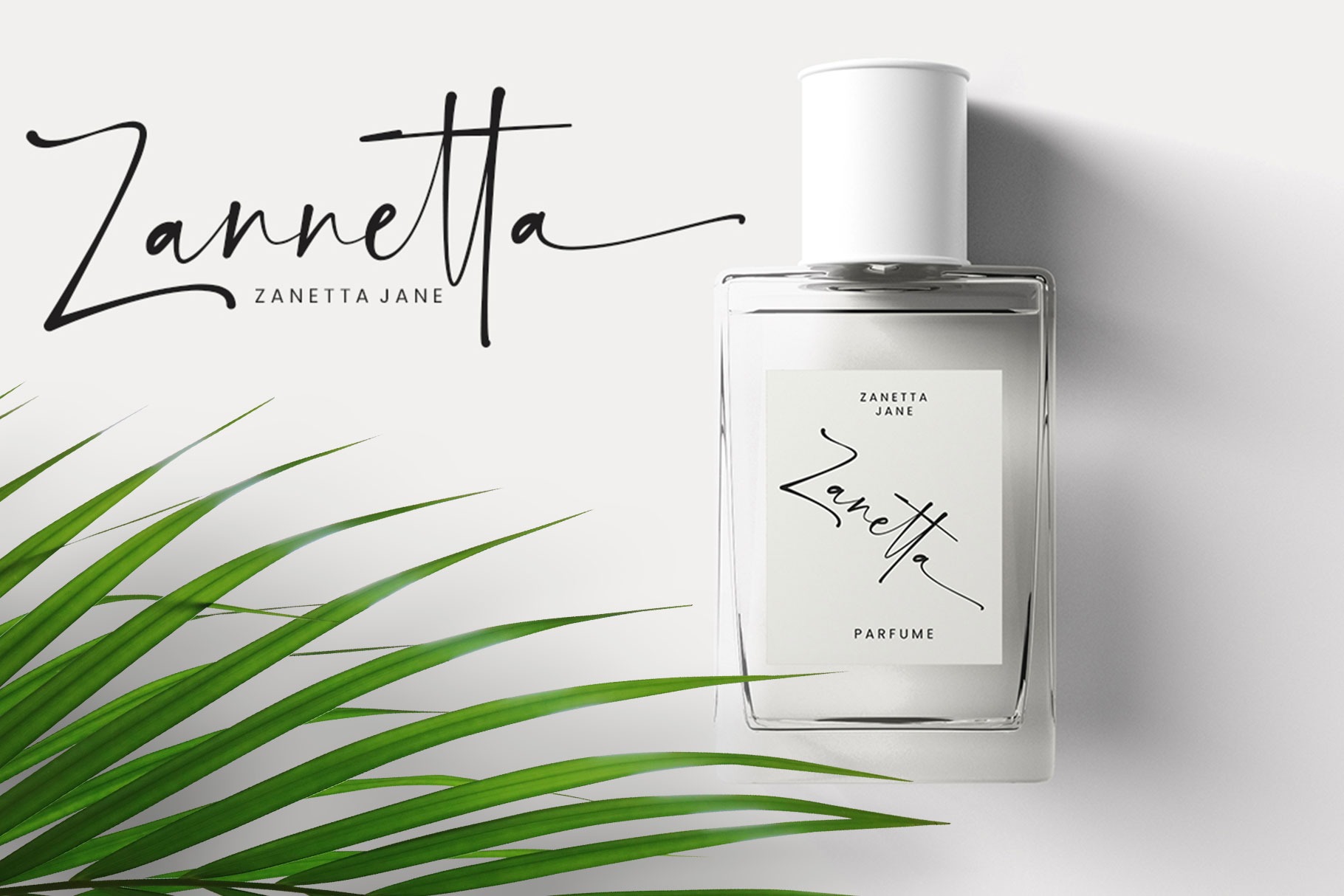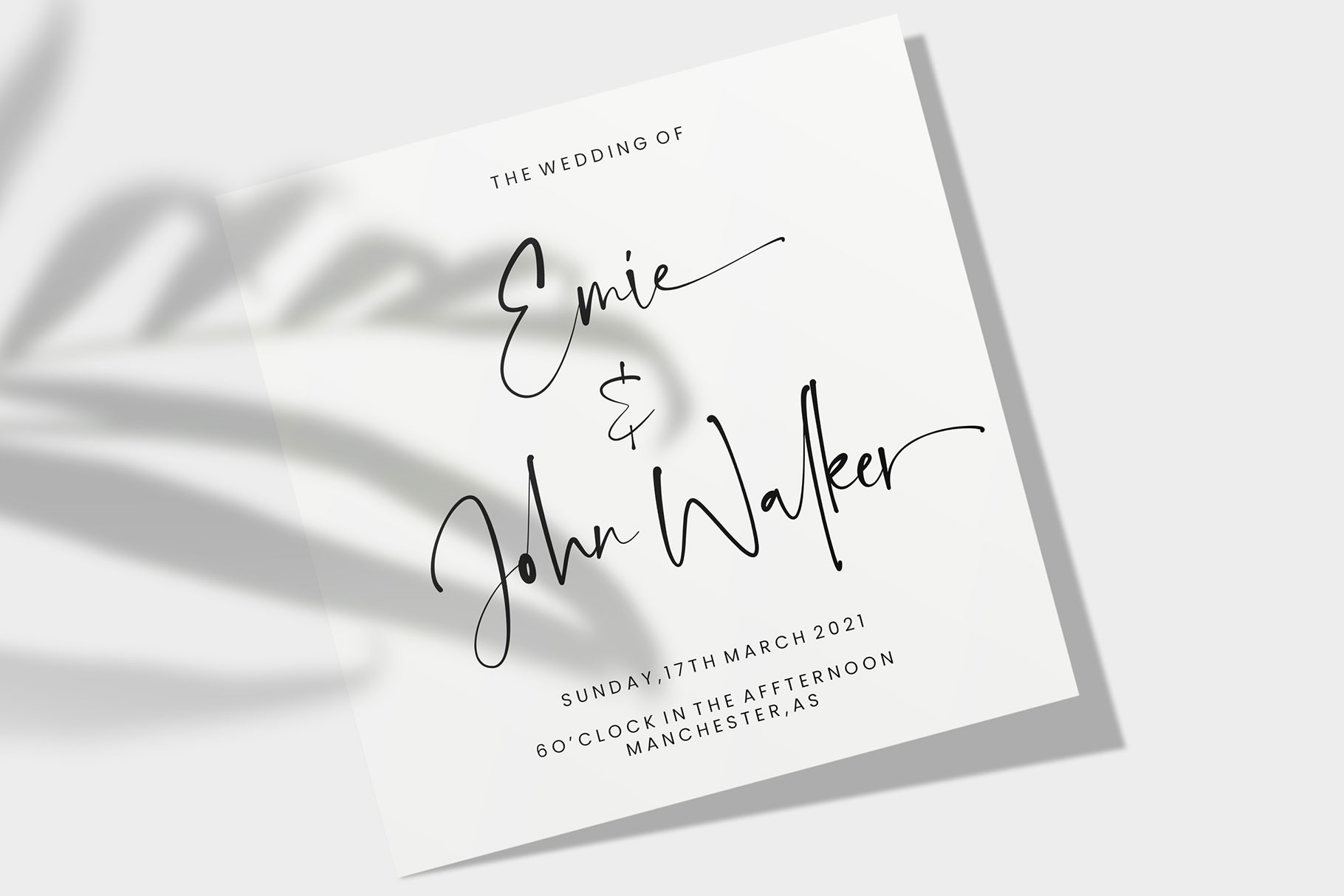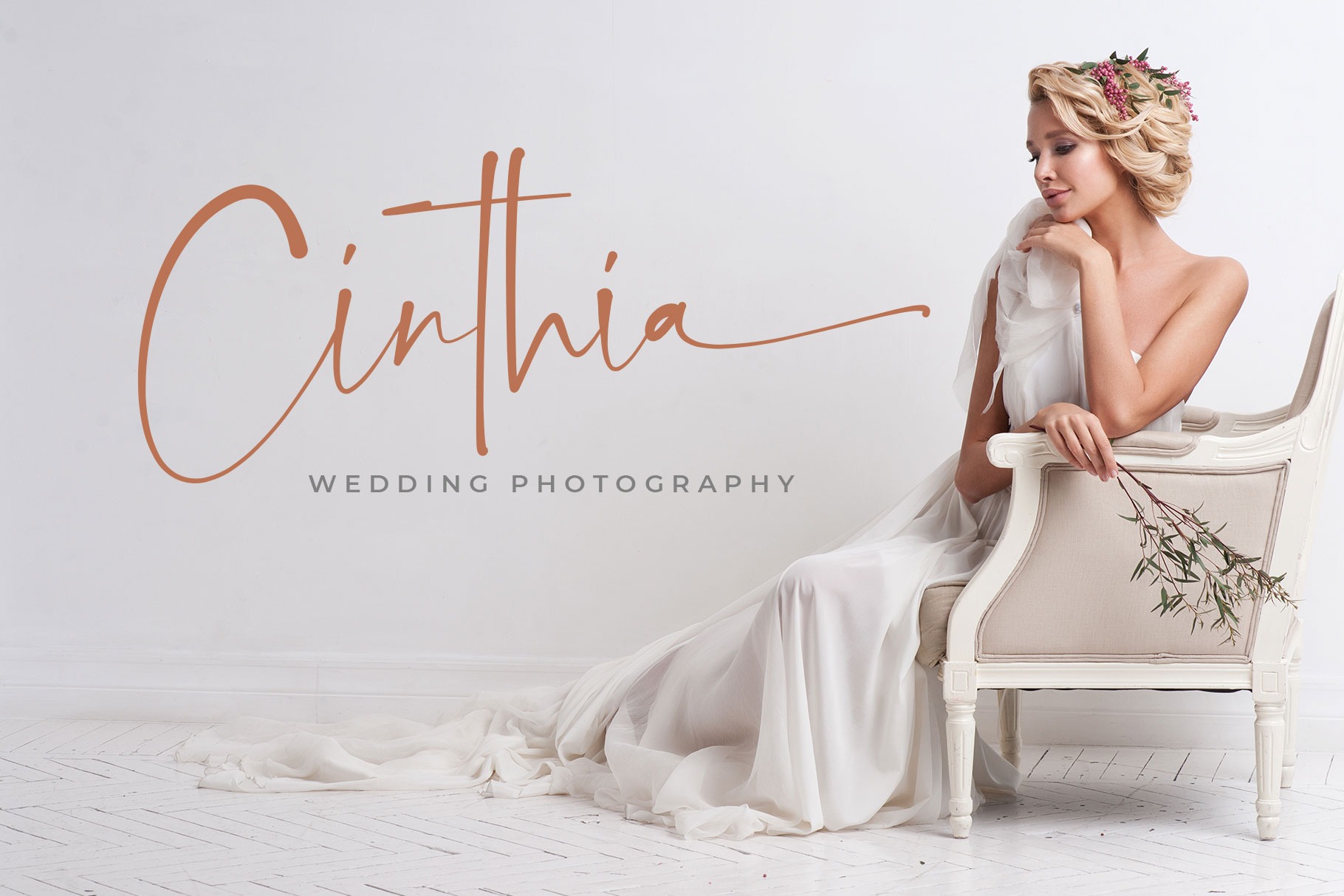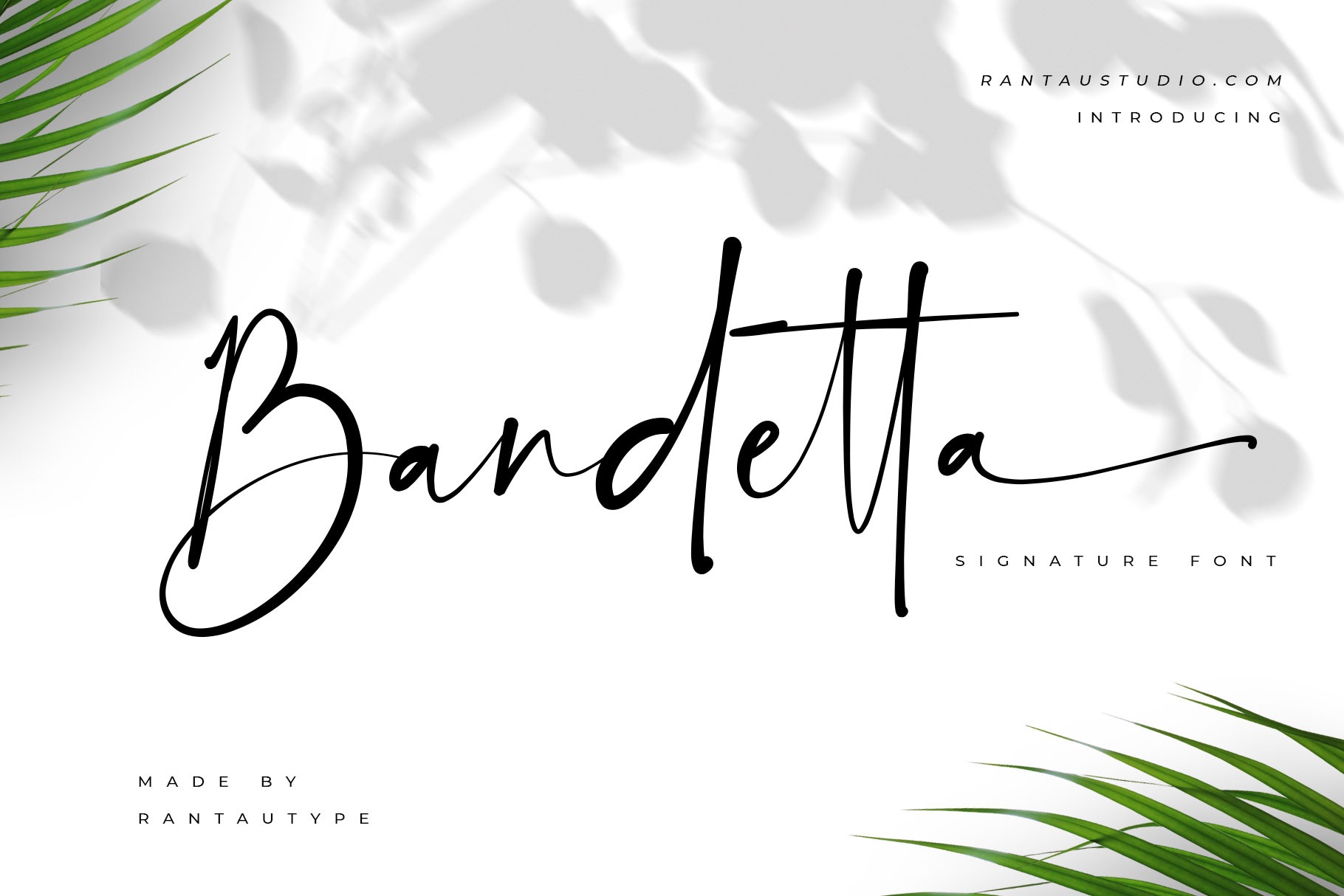
Bandetta Font
Bandetta Script Font
This is a lovely and timeless handwritten typeface crafted & designed by Rantautype. It is the best choice for creating eye catching logos, branding and quotes. Bandetta with a fast sweeping style and natural texture. This font is PUA encoded which means you can access all of the glyphs and swashes with ease!